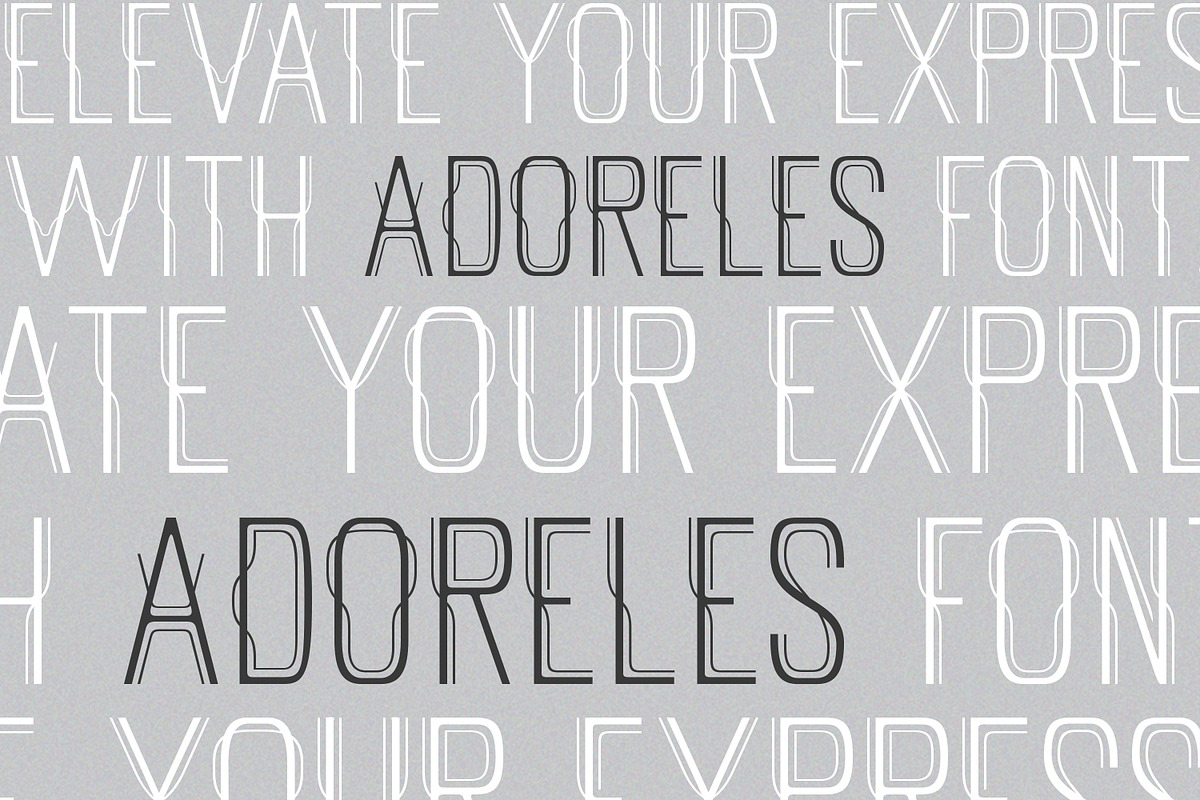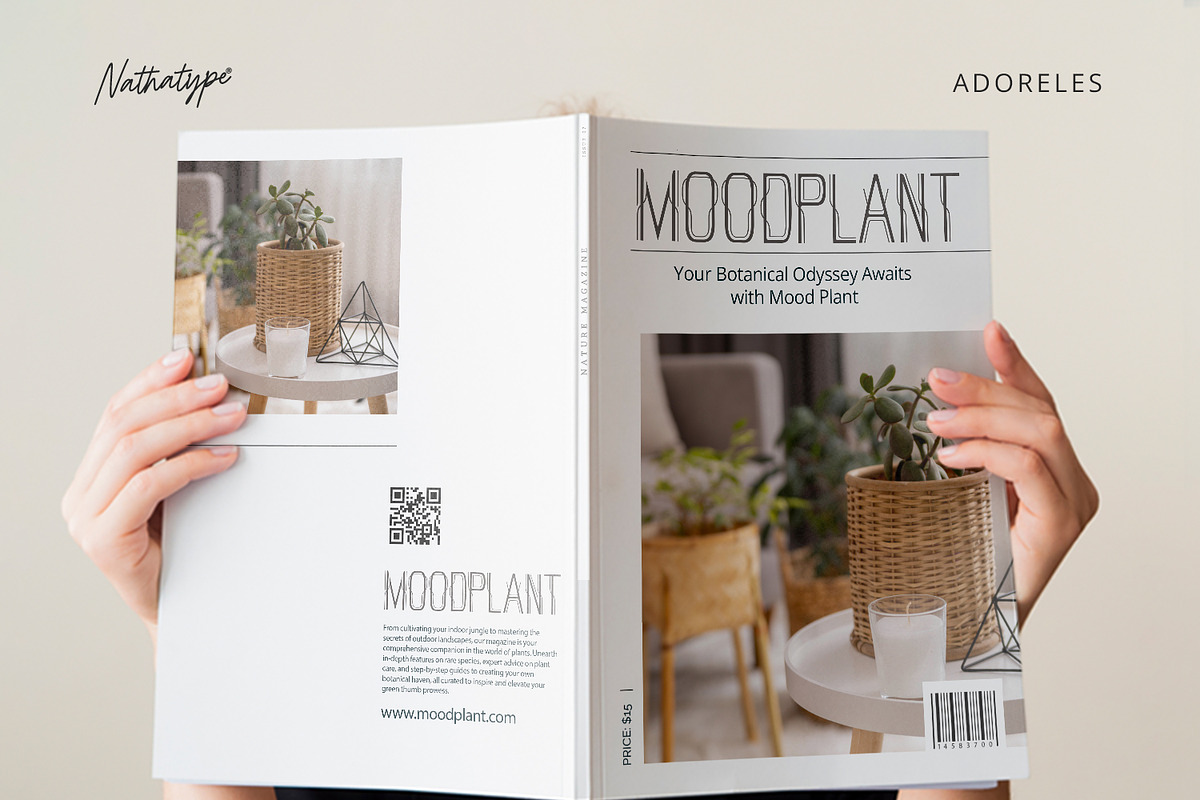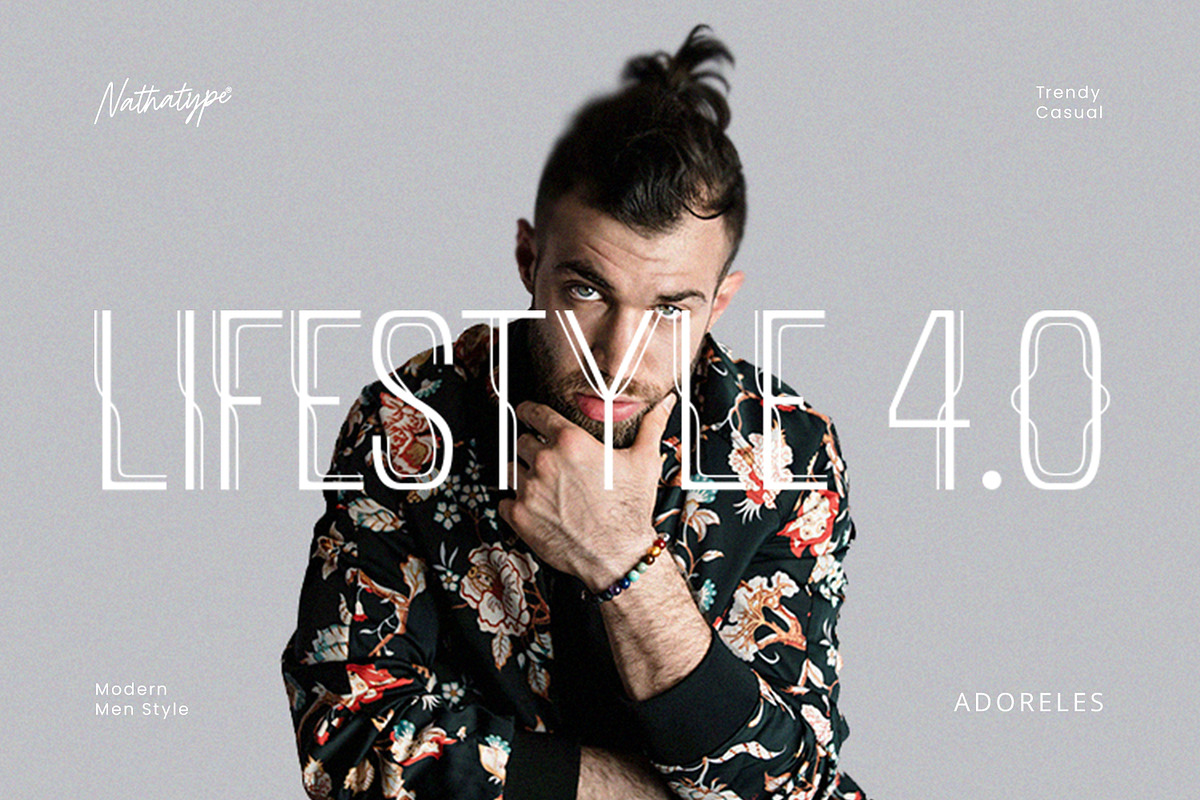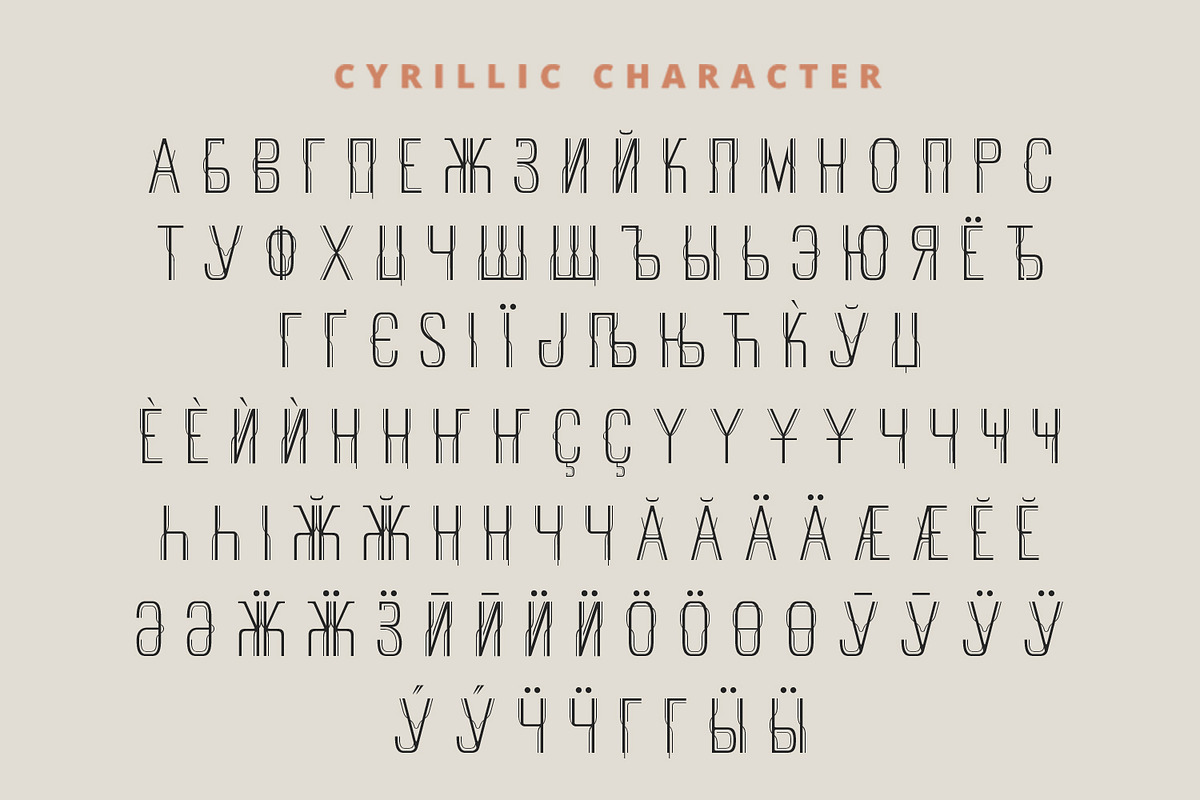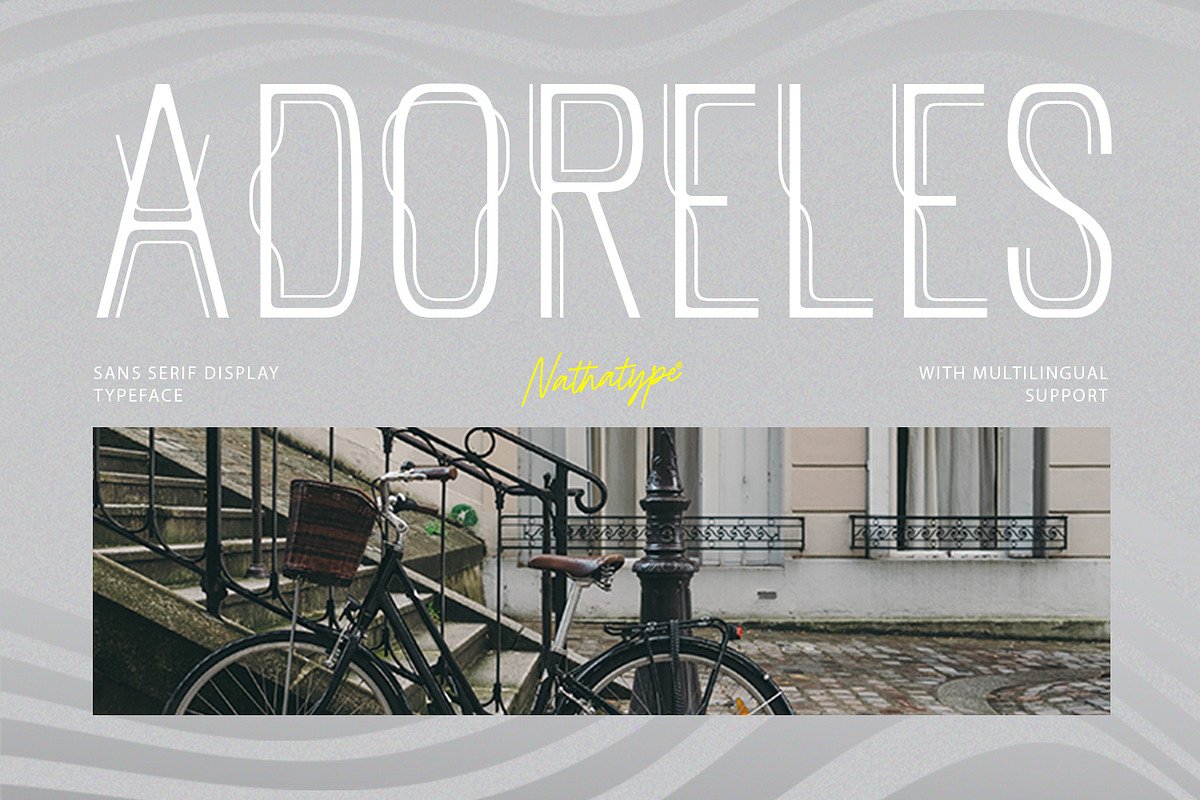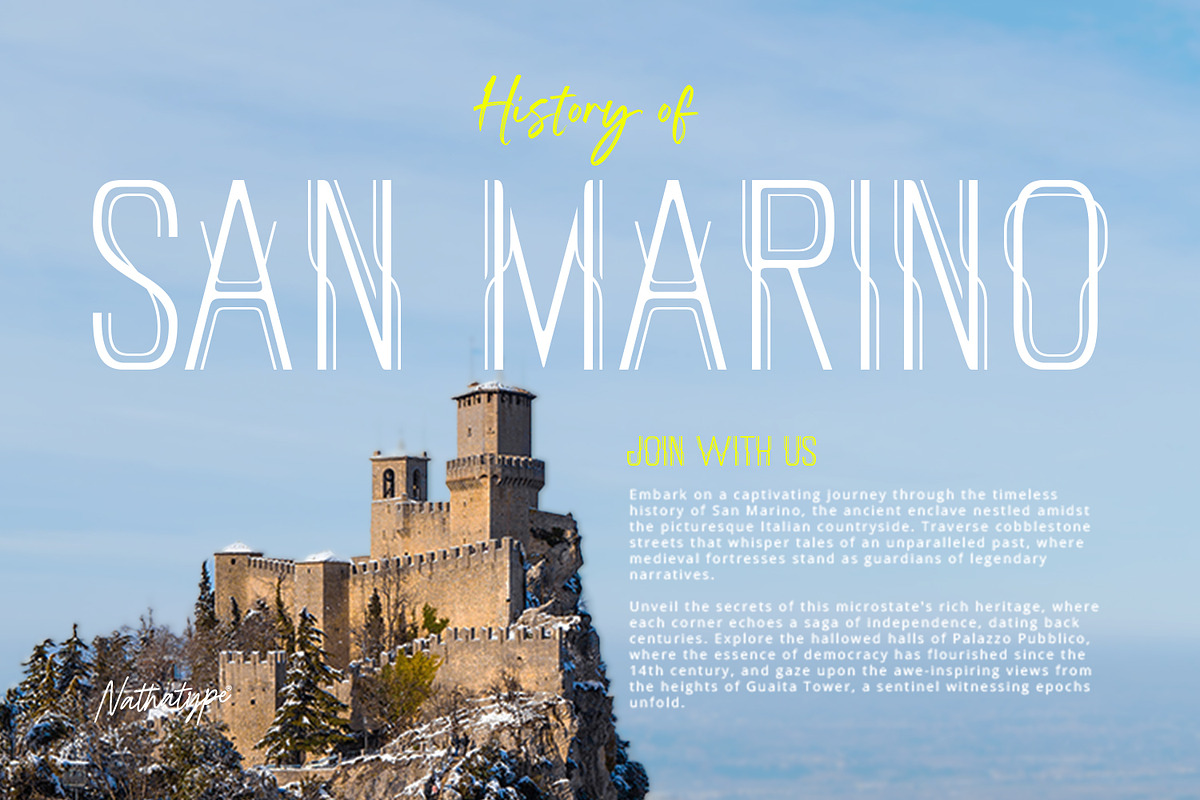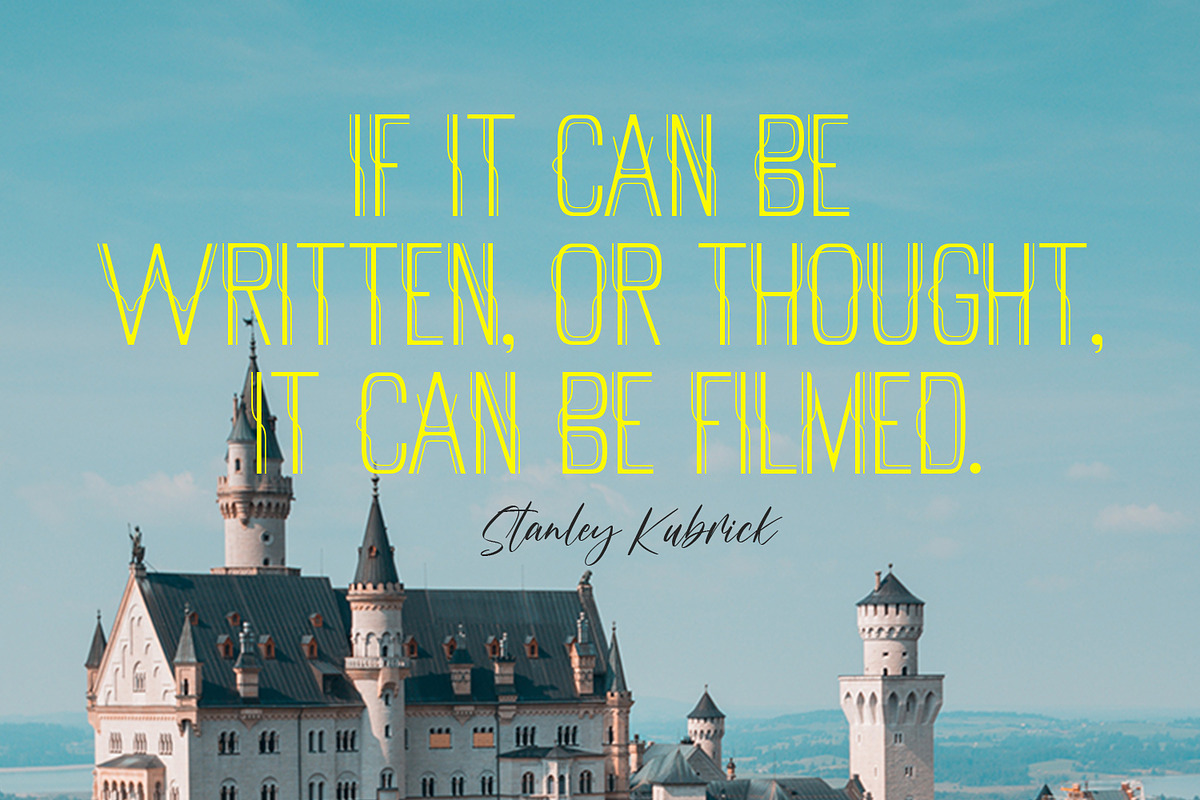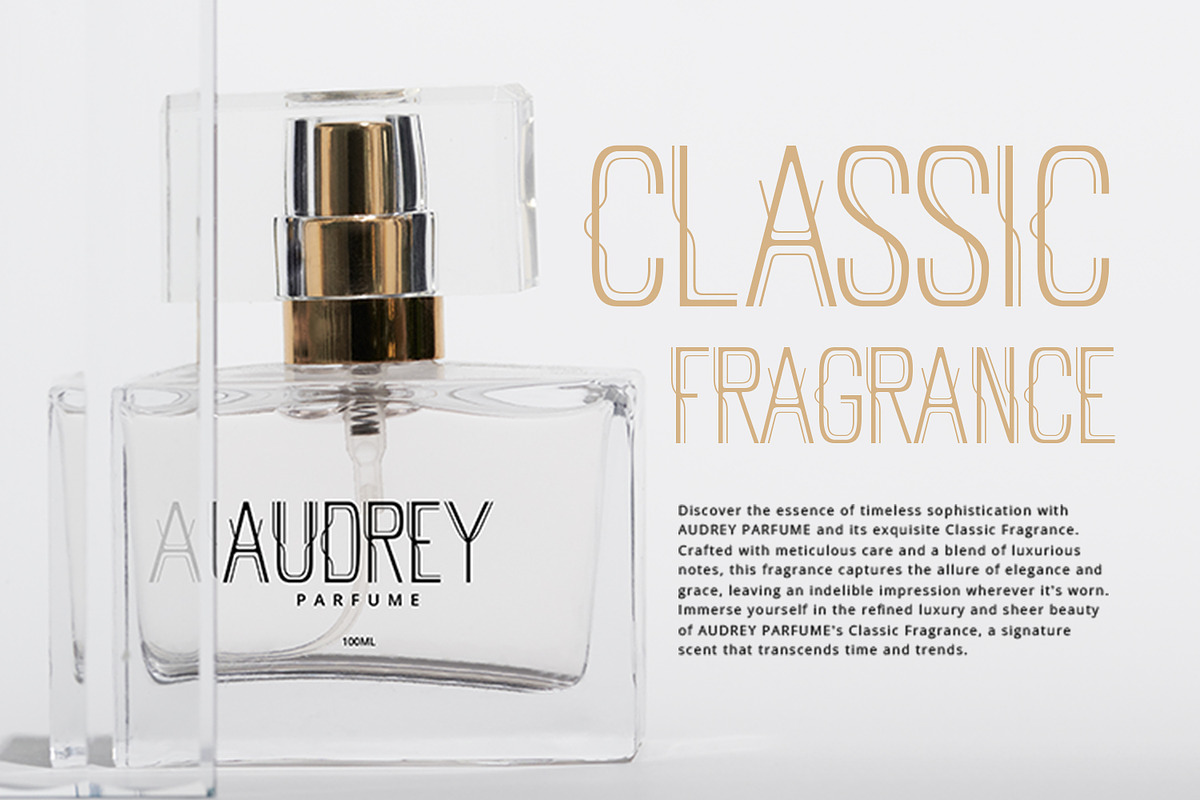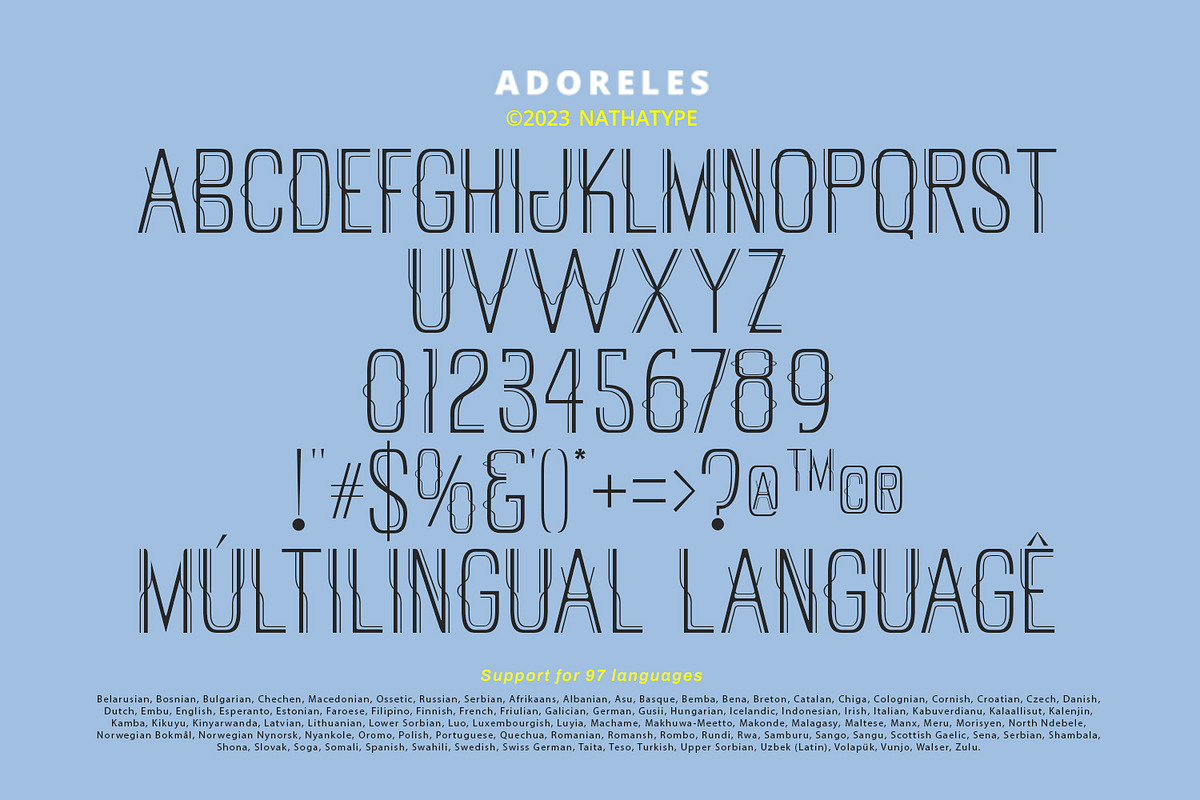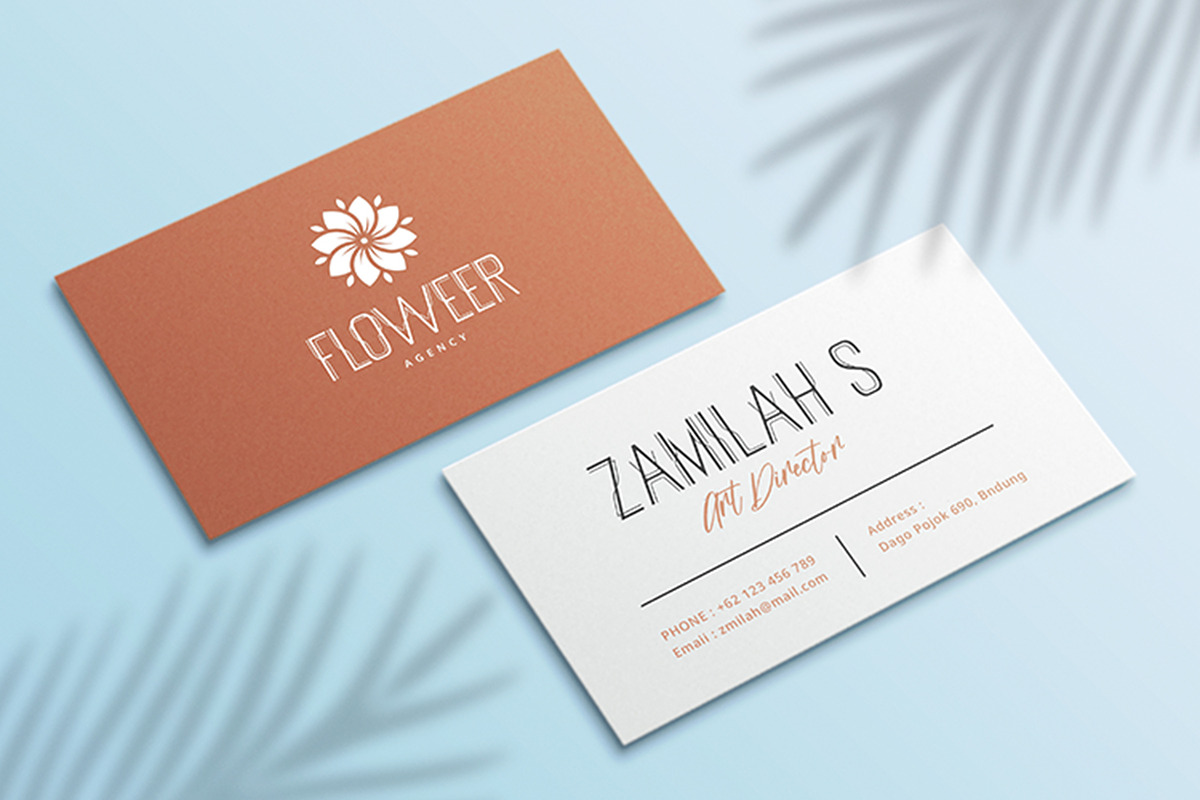
Adoreles
Adoreles is a distinctive sans-serif display font that stands out with its elegance and unconventional charm. Crafted with a delicate touch, this font creates a visual experience that is both refined and uniquely artistic. With Adoreles, you have a sans-serif display font that redefines the expected.
The characters in Adoreles are presented in uppercase, each possessing a subtle sophistication. By eschewing boldness, the font embraces a refined simplicity. The true magic of Adoreles lies in its inlines—irregular, yet meticulously designed to add a touch of unpredictability and individuality to each letter. Enjoy the features here.
Adoreles fits in headlines, logos, posters, flyers, branding materials, greeting cards, print media, editorial layouts, and many more designs. Find out more ways to use this font by taking a look at the font preview.